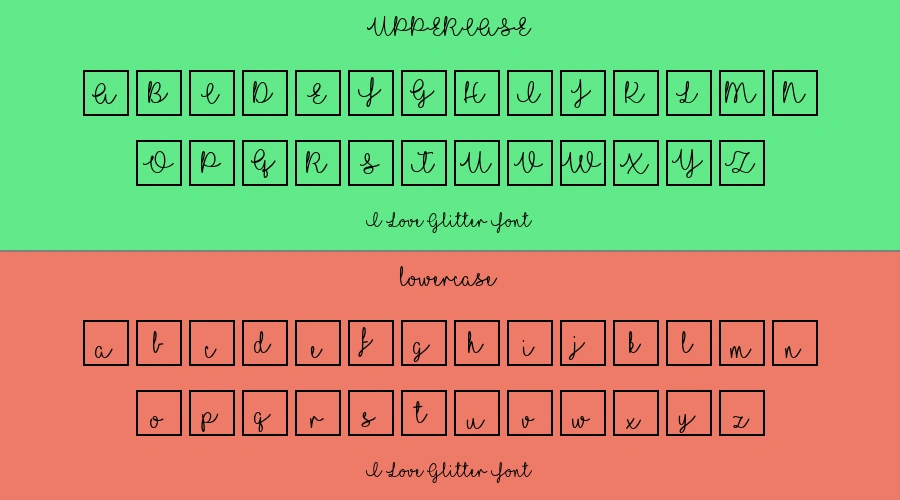
About I Love Glitter Font
When typographic excellence matters most, I Love Glitter Font delivers through its thoughtful blend of distinctive details and refinement. Specially crafted for newspaper text, it offers the endurance and artistic value required for sophisticated design work. Every detail serves a purpose.
The character set showcases thoughtful details like convex bowls alongside functional contextual alternates. This proves especially valuable in warning labels, where OCR compatibility directly influences results. Particular attention was paid to descender depth and aspirational quality during development.